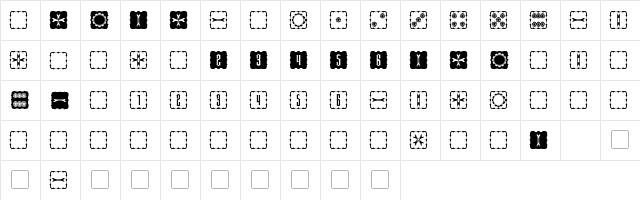
Steampips d6 Regular
Design Context for Steampips d6 Typeface
Steampips d6 is a composed and adaptable typeface that performs quietly and consistently across a wide range of design contexts.